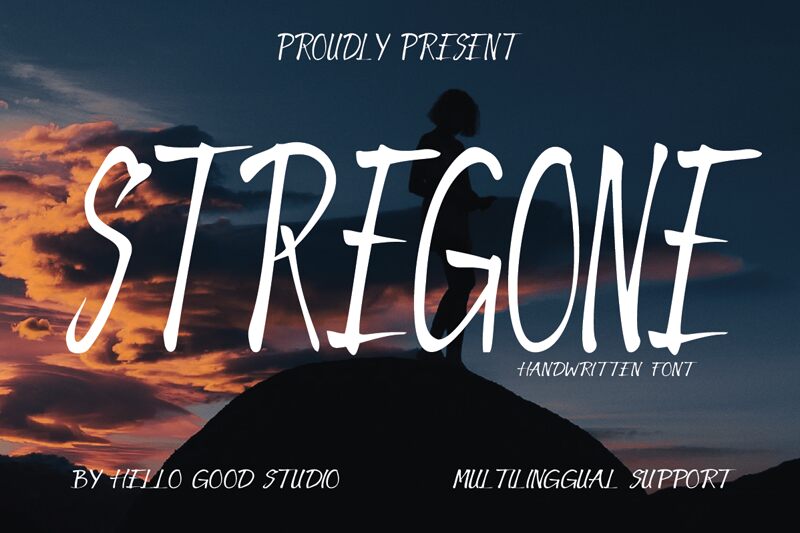
STREGONE
The Stregone script font designed by Studio Hello Good reflects a natural, confident, and stylish handwriting style. The condensed, handwritten script features a bold set of letters with a modern mix between curves and edges and a playful mixture of both rounded and pointy ends. Some letters are inspired by brush script typography while other features resemble a sans serif font.
The font’s playful and lively mood can be used for invitation cards, logos for clothing brands, social media graphics, and UX and UI designs. Use it also for posters, flyers, or branding projects to present a strong message with strong visuals.